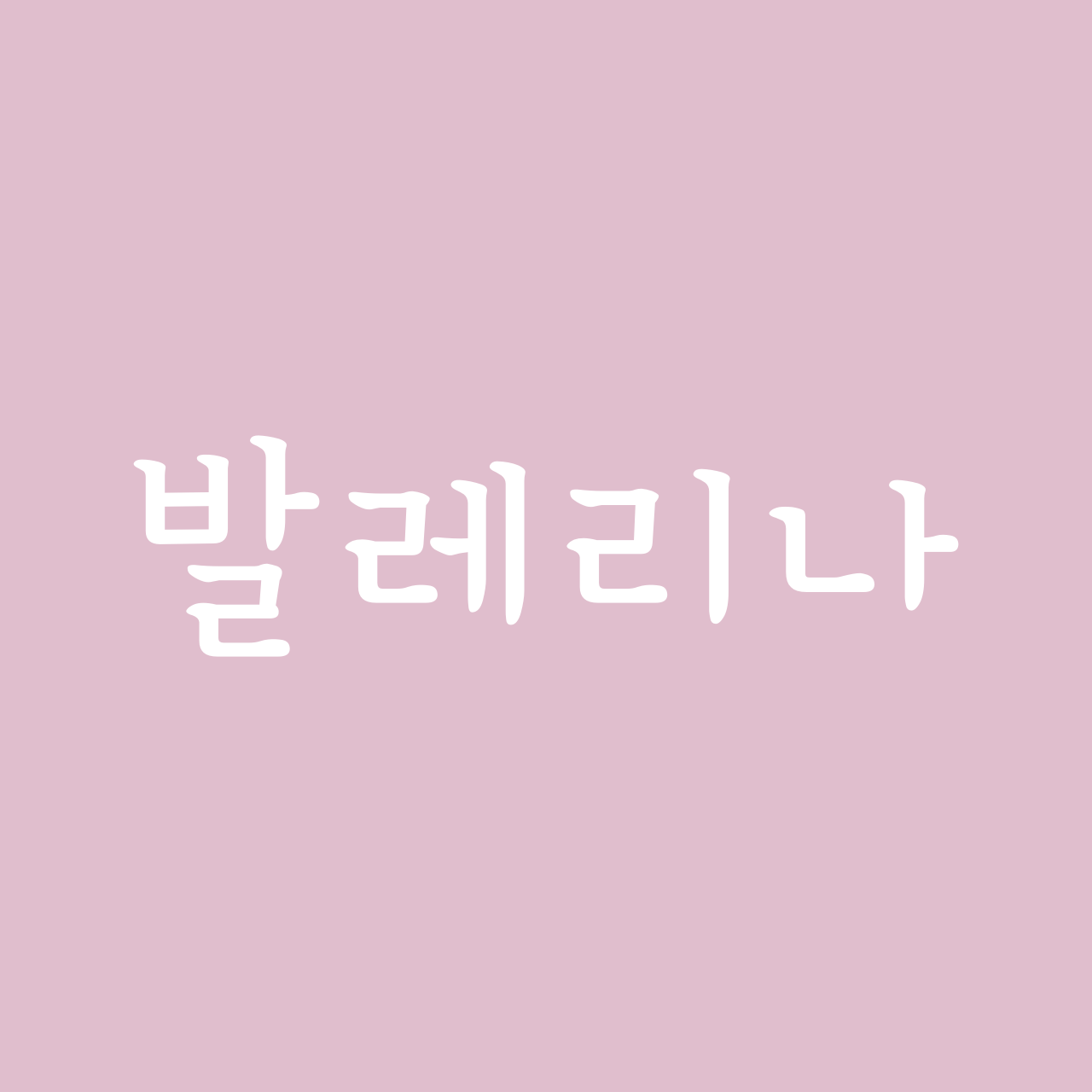
Typo_Ballerina
About "Typo_Ballerina"
Valerina is a typeface that applies the clinics and protrusions of the masterpiece.
The curved feeling from the decorative elements of the Mingjo is a font that gives an elegant and youthful feeling like a ballerina dance.
Designer
• Lim Jin -wook
• Han Hyo -young